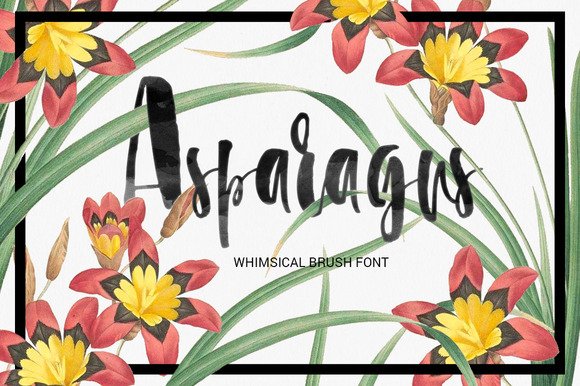
Meet the Asparagus Font: A Delicious Addition to Your Design Palette
Have you ever stumbled upon a font that instantly brightens up your design day? That’s exactly what happened when I discovered the Asparagus Font. I was working on a project, struggling to find the perfect combination of playfulness and friendliness, when a colleague suggested this charming brush font. As soon as I opened the font file, I knew I was in for a treat – the Asparagus Font’s whimsical strokes and curves immediately put a smile on my face.
The Asparagus Font is a delightful, hand-drawn typeface designed to add a touch of personality to any design. With its soft, rounded edges and natural flair, it’s perfect for creating inviting and approachable visual identities. Whether you’re designing a brand logo, a menu, or a promotional poster, the Asparagus Font is sure to bring a warm and welcoming feel to your work. As a valuable addition to your design toolkit, the Asparagus Font is an absolute must-have for anyone looking to add some visual charm to their projects.
Asparagus Font Key Features
- Unique Characteristics: Asparagus Font features a unique blend of modern and vintage elements, with intricate details and subtle texture, making it perfect for adding a touch of elegance to designs.
Asparagus Font Review
Overall, I think the Asparagus Font is a unique and intriguing addition to any design project. ✨ It has a distinct, whimsical feel that can add a touch of personality to any text-based element.
Some things that really work well with the Asparagus Font include its:
- High contrast and visibility, making it perfect for headings and titles.
- Unique letterforms and flourishes that add visual interest.
- Wide range of weights and styles, allowing for a lot of creative flexibility.
- ⚠️ The font can be difficult to read in smaller sizes or at a distance, due to its intricate details.
- ⚠️ The Asparagus Font may not be the best choice for body text, as it can be overwhelming to read in large quantities.
Overall, I think the Asparagus Font is a great choice for designers who want to add a touch of whimsy and personality to their work. While it may have some limitations, it’s definitely a unique and effective tool to have in your design arsenal.
Use the Asparagus Font to create eye-catching headlines and titles.
Combine it with bold or italic text to add emphasis.
Use the font in conjunction with other design elements to create a cohesive look.
The Asparagus Font is ideal for:
– Food and beverage branding
– Health and wellness marketing
– Creative and artistic projects
– Any project that requires a unique and playful font.
Alternatives to Asparagus Font
Great Vibes is a beautiful, elegant script font perfect for creating a whimsical and romantic atmosphere. It’s ideal for wedding invitations, greeting cards, and any design that requires a touch of sophistication. Great Vibes is more delicate and cursive compared to Asparagus Font, which makes it a great choice for designs that need a softer feel.
Pacifico is a stylish and modern script font that’s great for creating a beachy or tropical vibe. It’s perfect for travel brochures, restaurant menus, and any design that needs a relaxed and casual feel. Pacifico is more geometric and has a more open feel compared to Asparagus Font, making it a great choice for designs that need a clean and airy look.